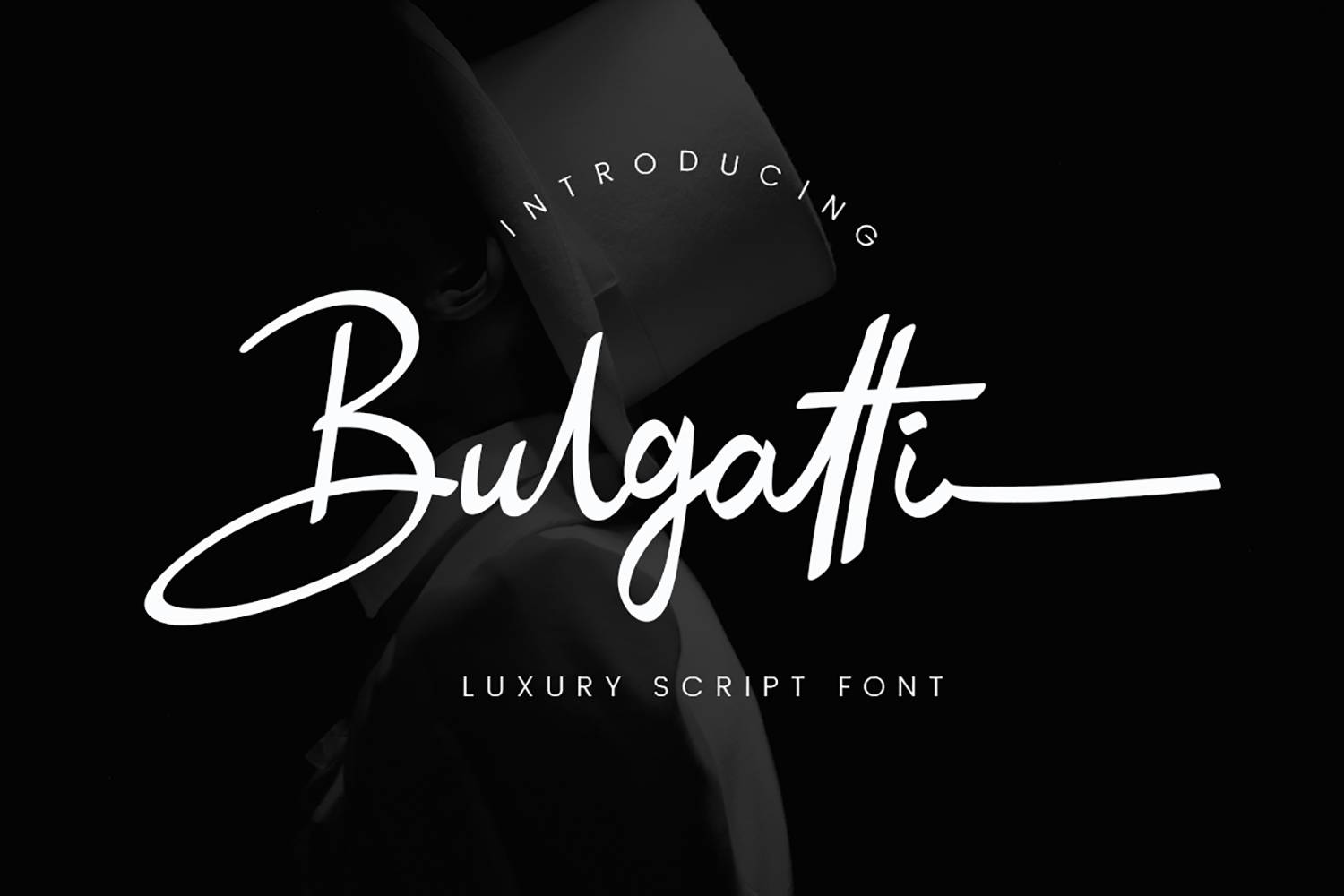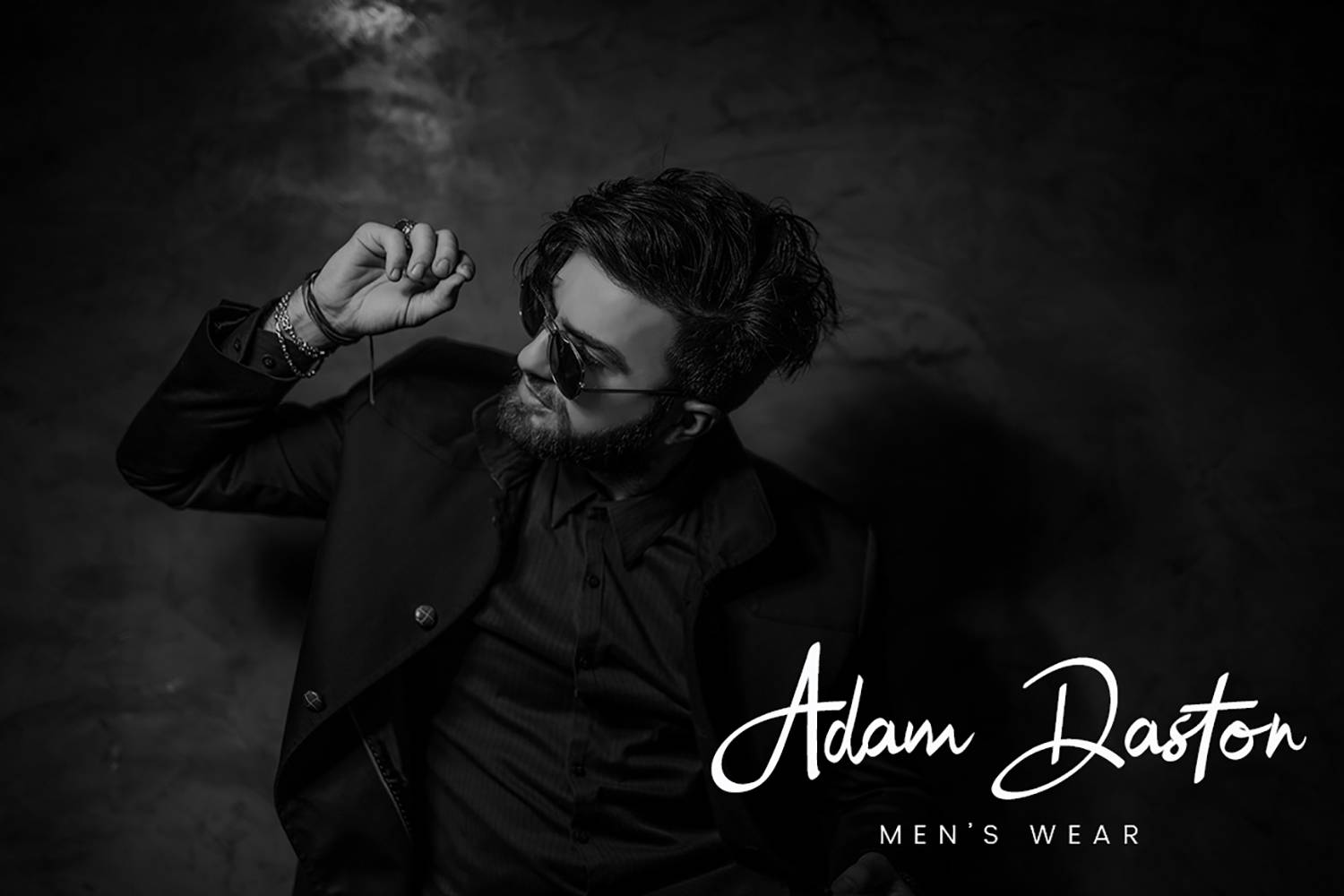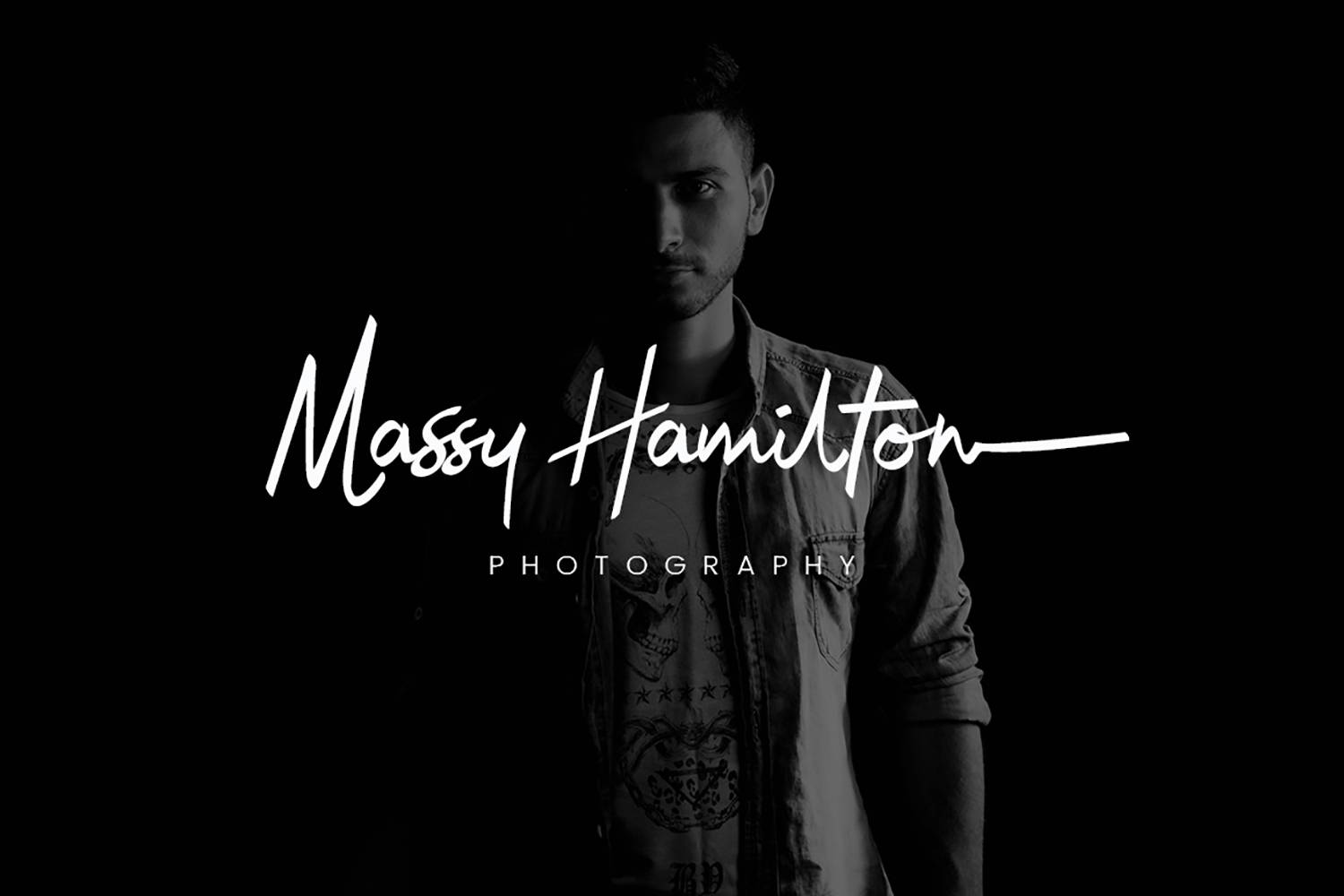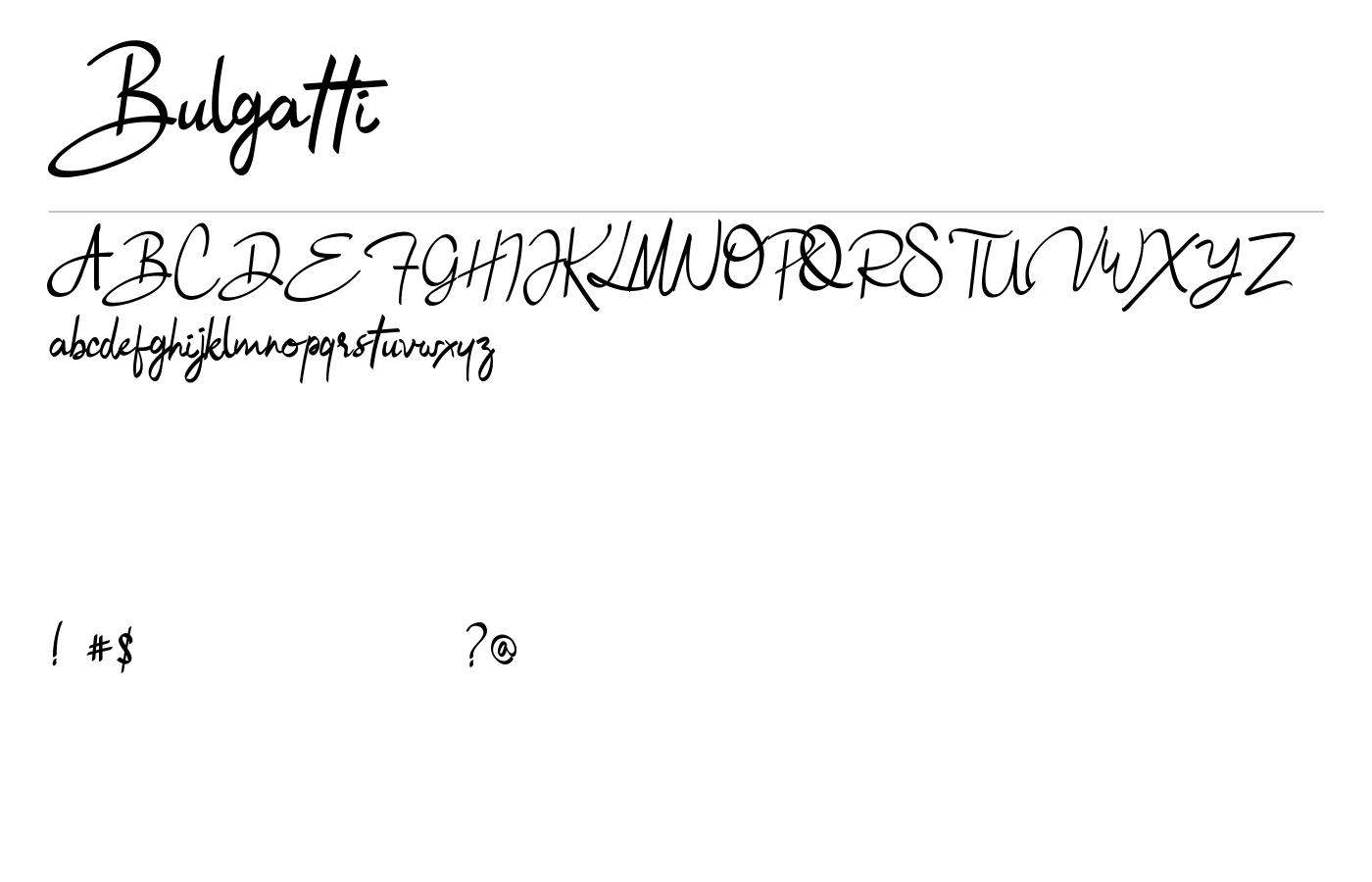
Bulgatti Luxury Font is a stylish and elegant handwritten script with a modern, flowing design that conveys sophistication and creativity. Its slender, smooth strokes and slightly irregular letterforms give it a personal, artistic feel, making it ideal for luxury branding, fashion logos, invitations, and editorial headlines where a touch of exclusivity and charm is desired. This font works beautifully in contexts that require a refined yet approachable look, adding a sense of bespoke craftsmanship.
Bulgatti Luxury Font
About Bulgatti Luxury Font
| Font family | Bulgatti Luxury Font |